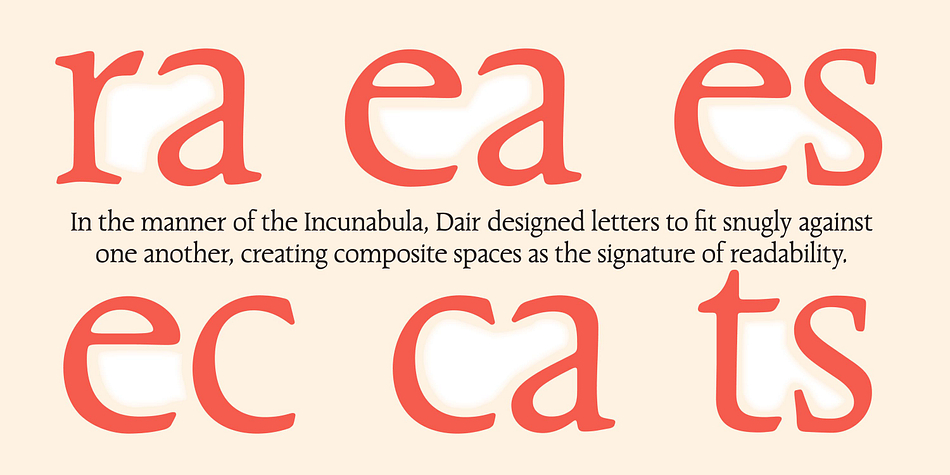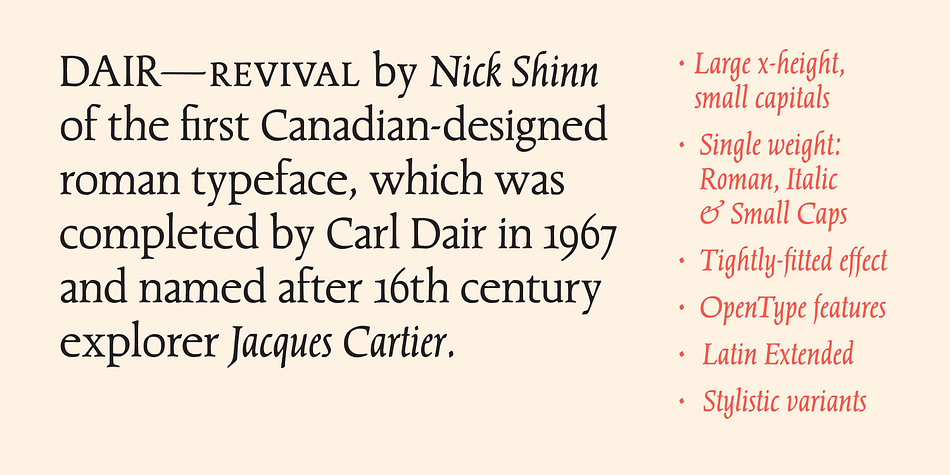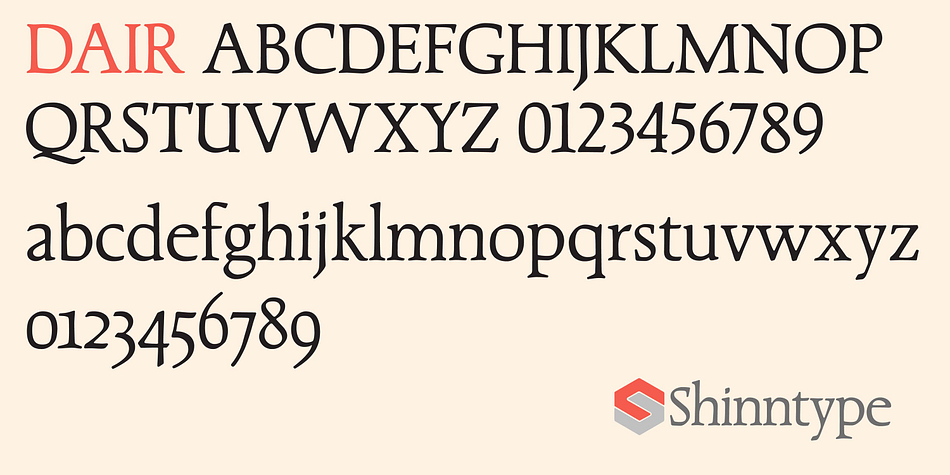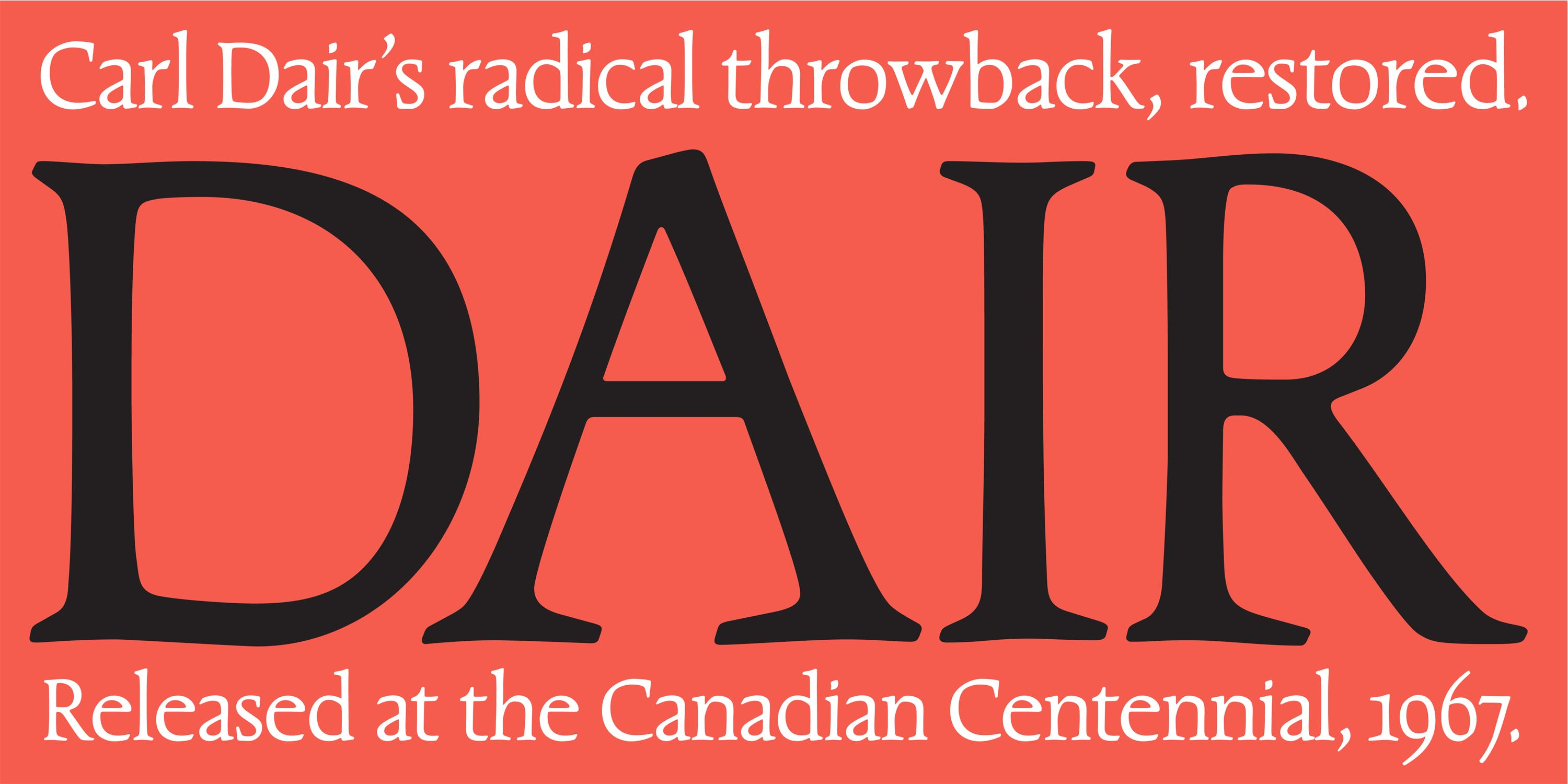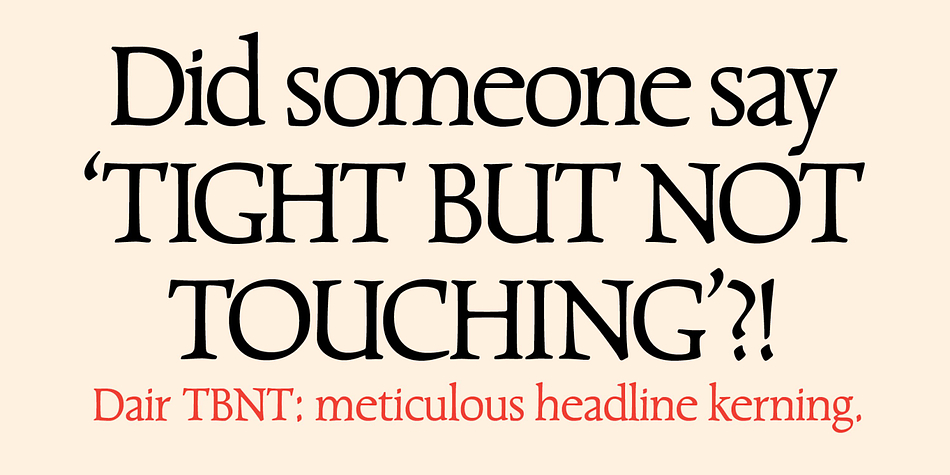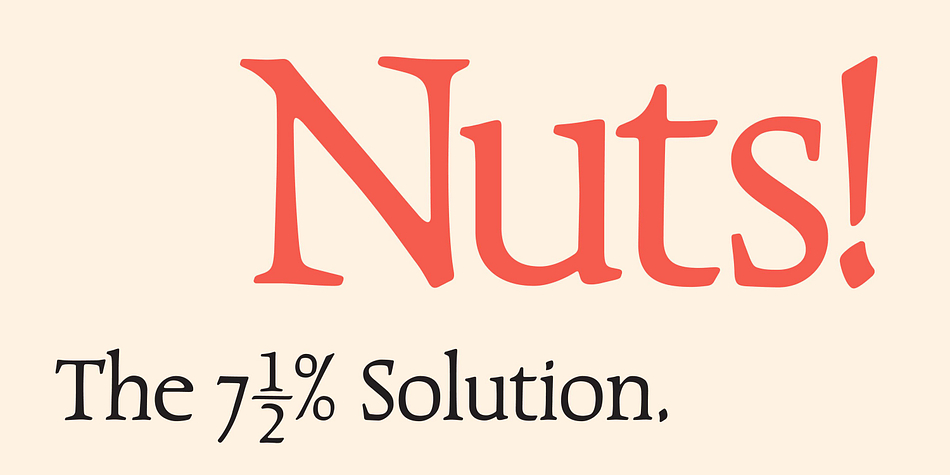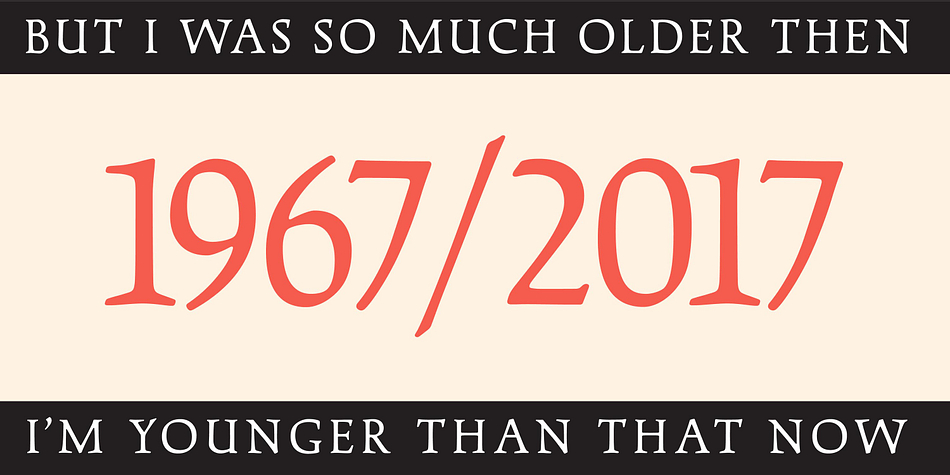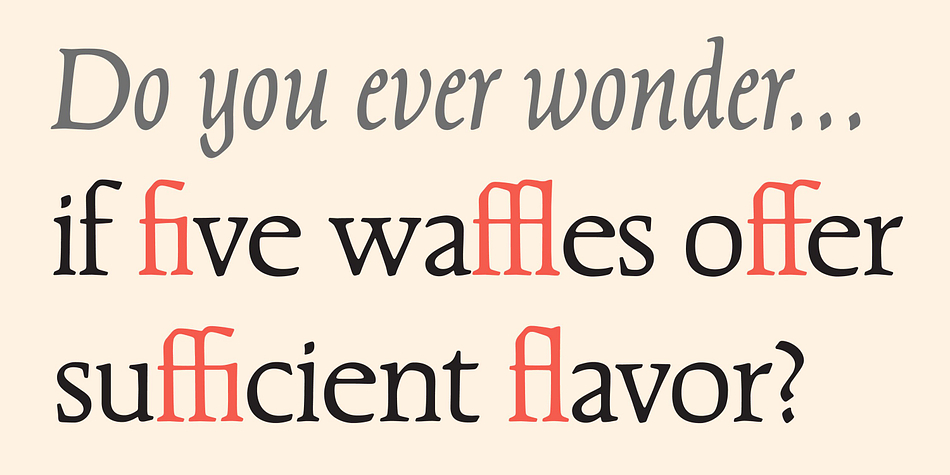
Designed by Carl Dair and Nick Shinn, Dair is a serif font family. This typeface has five styles and was published by Shinntype.
A restoration of the first Canadian-designed roman typeface, which was completed by Carl Dair in 1967 and named after 16th century explorer Jacques Cartier.
The design is characterized by ascenders which tower dramatically above the capitals, by condensed italic minuscules inclined at a mere 6 degrees—and by its profound empathy for the core principles of the roman type form, originating over 500 years ago.
The revival was made from a printed example of the face, in the “The Magic Fiddler, and Other Legends of French Canada” by Claude Aubry, published in 1968.